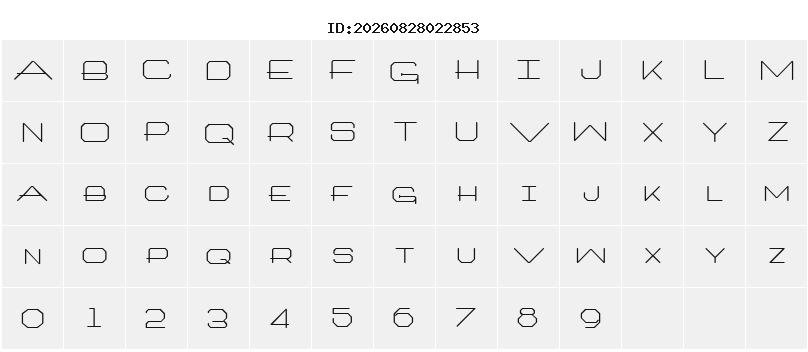
Trooklern Preview
• Font Name: Trooklern
• Font ID: Altsys Metamorphosis:Trooklern Regular
• Full Font Name: Trooklern Regular
• Version: Altsys Metamorphosis:4/9/92
• PostScript Name: Trooklern Regular
• Character Count: 181
About Trooklern.ttf
Trooklern.ttf is a modern, elegant sans-serif font designed for ultimate readability and visual harmony. Perfect for branding, headlines, web design, and print materials.